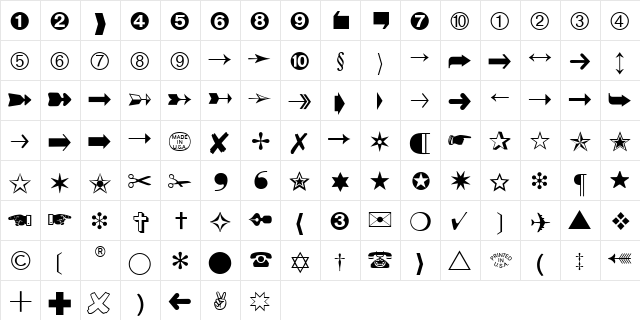
Zapf Dingbats One Hundred BQ Regular Font Preview
Zapf Dingbats One Hundred BQ Regular
Design Context for Zapf Dingbats One Hundred BQ Typeface
Zapf Dingbats One Hundred BQ takes a measured approach to typography — its balanced proportions and neutral character make it a reliable workhorse for both digital and print work.